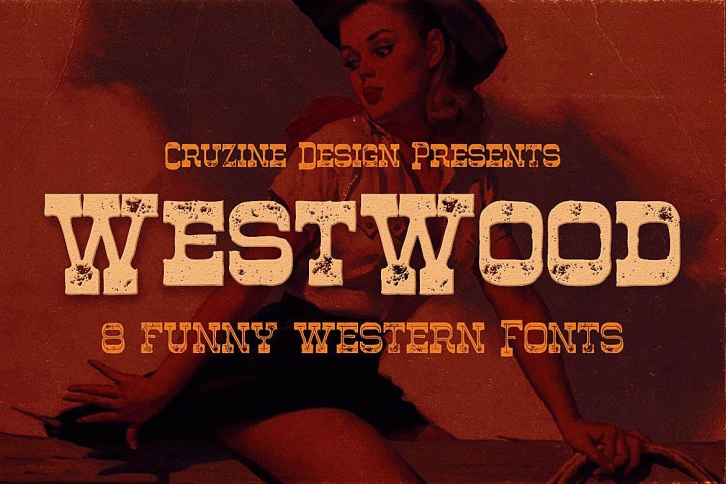
Westwood is a trendy and unique font with an authentic style. It was designed by Cruzine Design and it's a great choice for creative people who need such a font. It was released on November 5, 2017 and the file size is 19.13 MB. Westwood will add an organic vibe to any design idea!